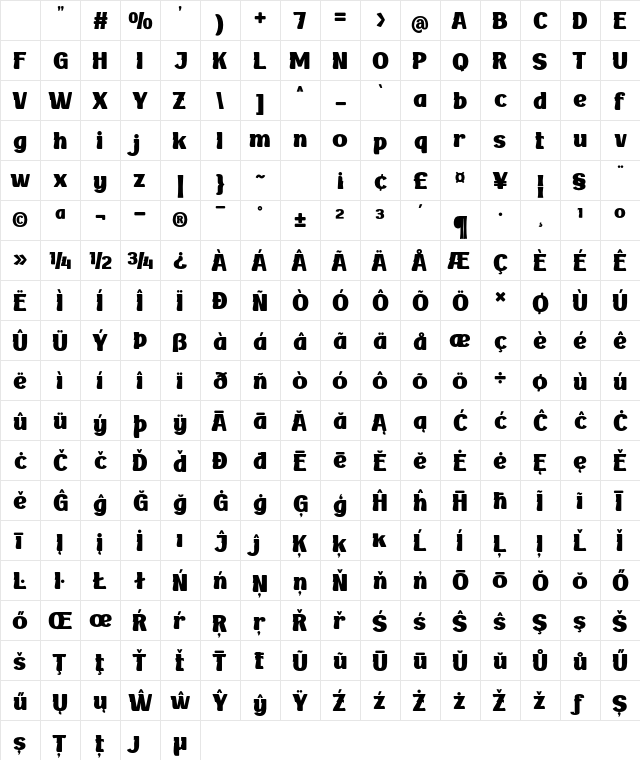
BAKRUV Trial Regular
Foundry: twinletter
Designer: Ojak
Design Context for BAKRUV Trial
BAKRUV Trial is a composed and adaptable typeface that performs quietly and consistently across a wide range of design contexts.
Pro Tip: Use BAKRUV Trial in both headline and body roles to test its range before committing to a single application.